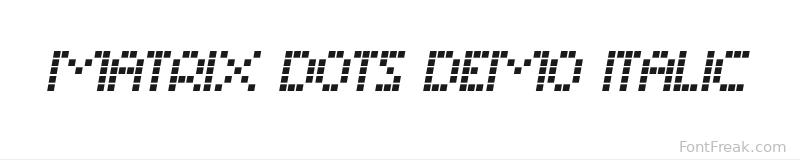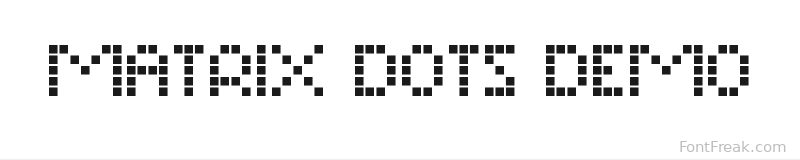
Matrix Dots Demo Outline
Matrix Dots Demo Italic
Matrix Dots Demo
Matrix Dots Demo Outline is a striking display font created by Noah Type, perfect for those seeking a unique typographic style. This font falls into the decorative category, characterized by its distinctive dotted outlines that evoke a sense of modernity and digital aesthetics. The stroke weight is consistent, creating a visually engaging experience, while the overall design features an intriguing interplay of spaces and dots that capture attention.
The font's visual characteristics lend themselves to a variety of creative applications. Its bold yet minimalist appearance makes it an excellent choice for movie posters, where it can convey a sense of drama and excitement. Additionally, the Matrix Dots Demo Outline font is ideal for tech-themed branding, helping businesses create a futuristic identity. It can also be utilized in promotional materials for gaming events, where its unique design will resonate with a younger audience. Furthermore, it can serve well in digital art projects, allowing artists to explore innovative layouts and compositions.
This font targets graphic designers, small business owners, and content creators who are looking to make a memorable impact with their visual communications. Whether you're designing an eye-catching flyer, a dynamic website, or social media graphics, this font adds a distinct flair that can elevate your work.
What sets the Matrix Dots Demo Outline apart is its ability to blend creativity with functionality. Its playful yet professional demeanor invites viewers to engage while maintaining clarity in messaging. For those interested in this unique typeface, the Matrix Dots Demo Outline font free download offers an accessible opportunity to incorporate this captivating style into any design project. Embrace the future of typography with this standout font from Noah Type.